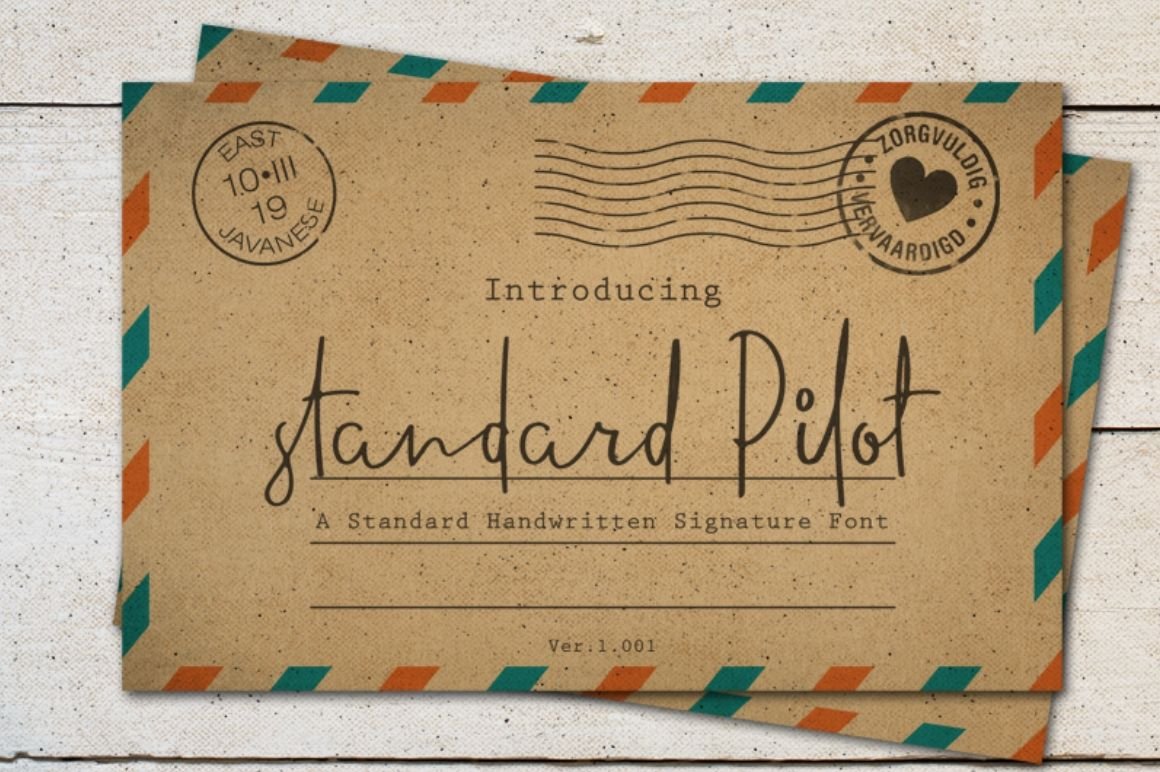
Standard Pilot Free Font
Standard Pilot is a standard handwritten signature font inspired by the natural handwriting of ballpoint, highly recommended for your design projects. You can use it for – quotes, logo design, ID card, self-branding, prints, and much more.
Standard Pilot Free Font
Preview Of Standard Pilot Free Font: